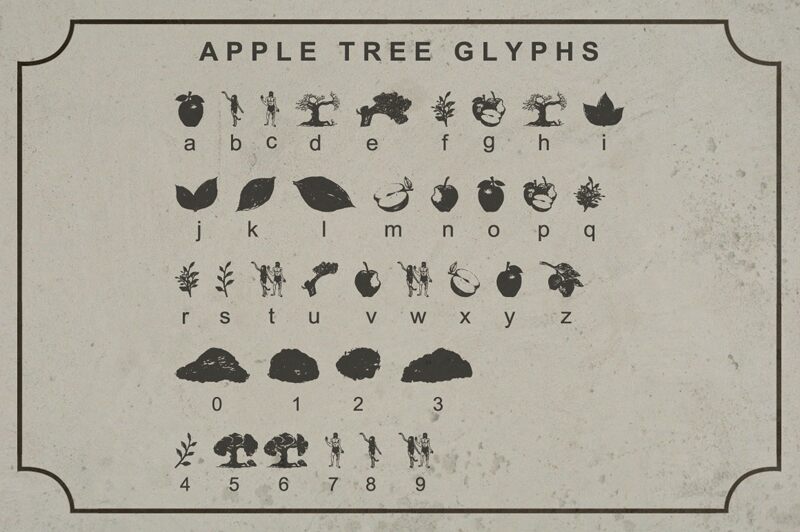
Apple Tree Decorative font, part of the Apple Tree family designed by FHFont, is a delightful collection of nature-inspired dingbats that brings whimsy and a touch of organic charm to any design. The bold, expressive shapes resonate with life and creativity, featuring distinct illustrations that range from lush apples to intricate trees and playful figures.
Visually striking and rich in detail, this font encompasses a vibrant aesthetic that effortlessly enhances projects focused on themes of nature or humanity. Its unique characters can transform branding materials, invitations, or eco-conscious campaigns into visually engaging narratives. Perfect for designers seeking to infuse their work with an earthy vibe, Apple Tree Decorative stands out as an essential tool for creating memorable and thematic visual experiences.
Apple Tree
Decorative